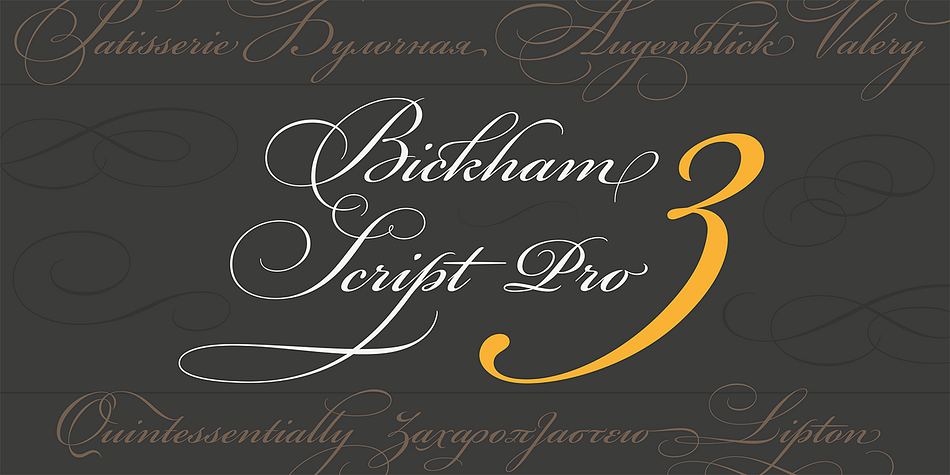
Bickham Script® Pro 3
Designed by Richard Lipton, Bickham Script® Pro 3 is a script font family. This typeface has three styles and was published by Adobe.
Richard Lipton’s Bickham Script is a flowing, formal script typeface based on the lettering of 18th century writing masters, as rendered in the unparalleled engravings of George Bickham.
Richard Lipton’s Bickham Script is a flowing, formal script typeface based on the lettering of 18th century writing masters, as rendered in the unparalleled engravings of George Bickham. This ornate script, intended primarily for display settings, lends a signature flourish to invitations, menus, annual reports, restaurant logos, and packaging. The most recent development work added full Greek and Cyrillic script support, including a stunning range of nuanced contextual alternates.
Foundry Adobe
Designer Richard Lipton